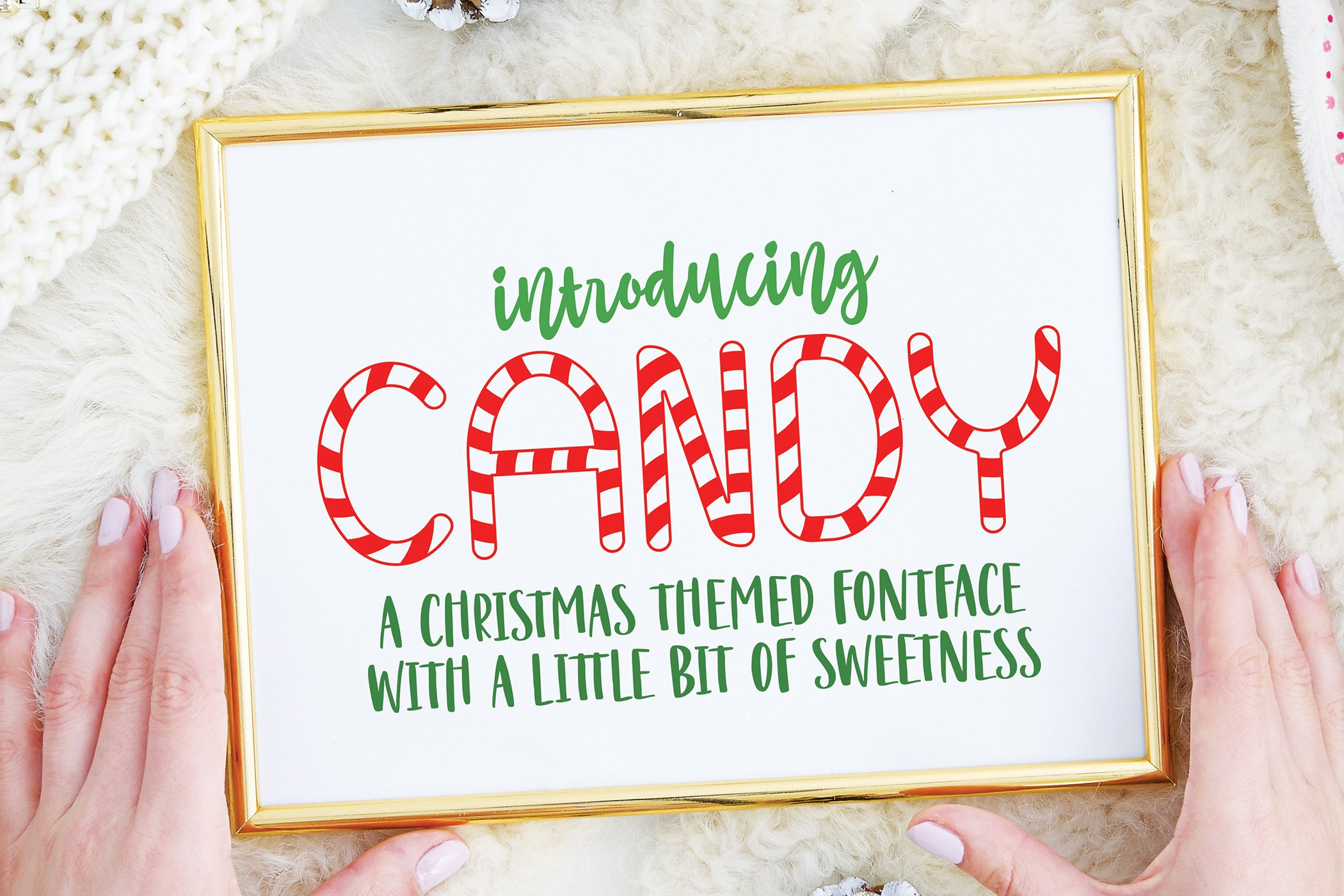
Candy Christmas Font
It's cute, it's sweet, it's christmassy! The font is meant to bring the Christmas joy in your life in simple and playful way.
It consist of upper case letters and numbers.